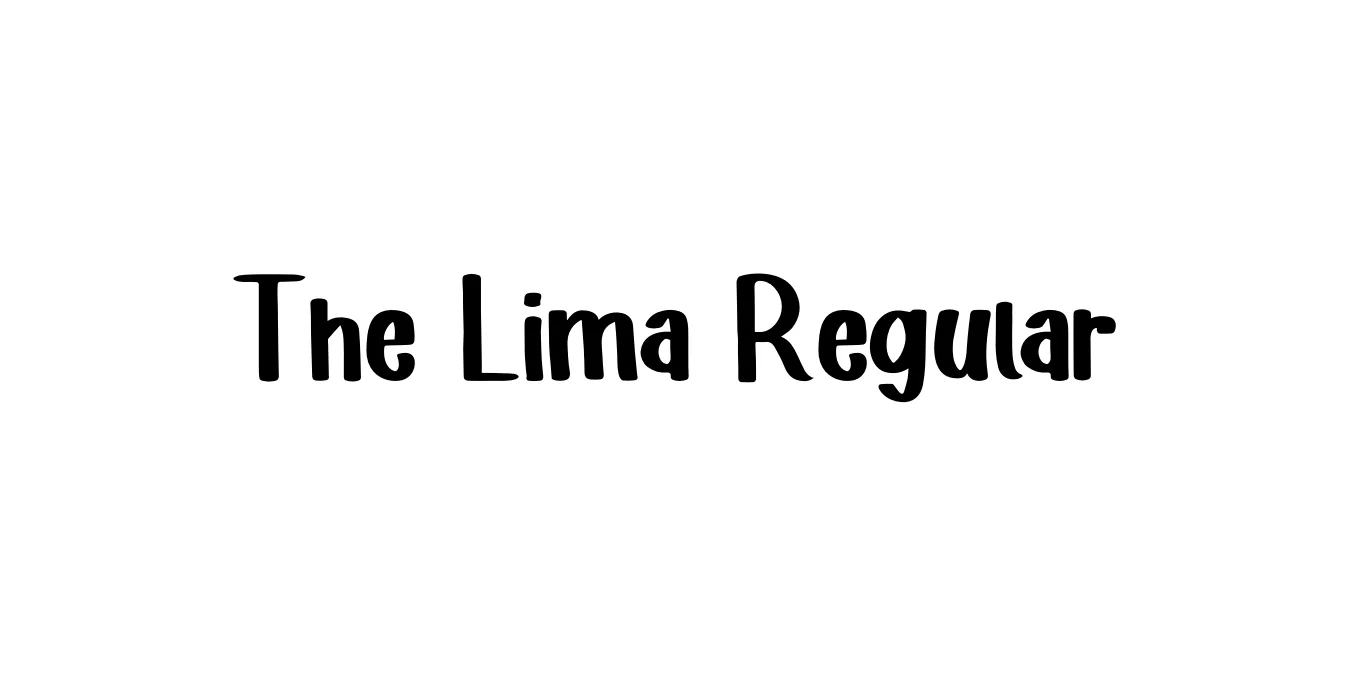
The Lima Regular
Designed by Alit Suarnegara
| Font Name | The Lima |
| Category | Handwritten Script |
| Designer | Alit Suarnegara |
The Lima Regular is a charming and organic display typeface designed by Alit Suarnegara of Alit Design. It features a hand-drawn aesthetic that combines fluid strokes with a slightly rustic texture, making it ideal for creative projects that require a personal touch. The font is part of a larger family that includes alternates and stylistic swashes to enhance its versatility, allowing designers to create unique typographic layouts with ease.
This font is widely used for branding, packaging, and social media graphics. Its balanced proportions and expressive character allow it to stand out in both print and digital formats. Whether used for an elegant logo design or rustic wedding invitations, The Lima Regular brings a sense of authenticity and warmth to any visual composition, making it a favorite among modern designers looking for a natural script feel.
The Lima Regular Best Uses
Perfect for logos and identity projects that need a natural, personal feel.
Great for artisanal, craft, and organic product labels.
Ideal for wedding, birthday, and special event stationery.
Excellent for creating engaging quote graphics and stylistic posts.